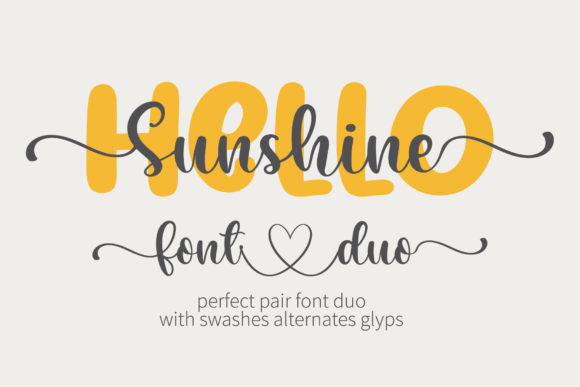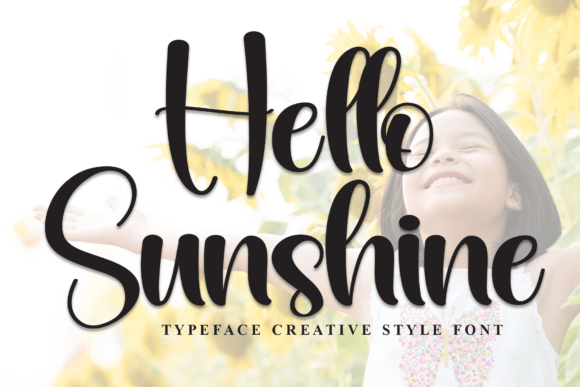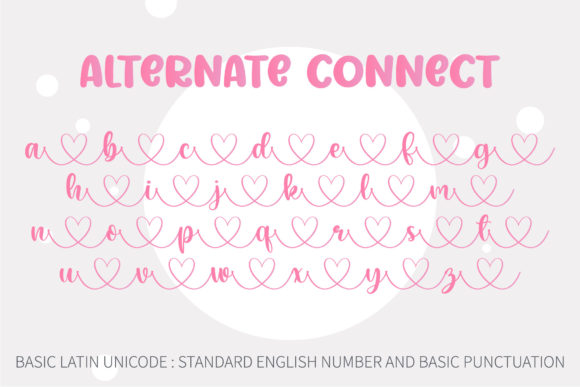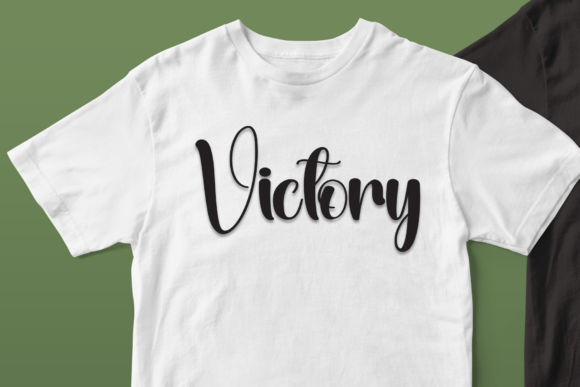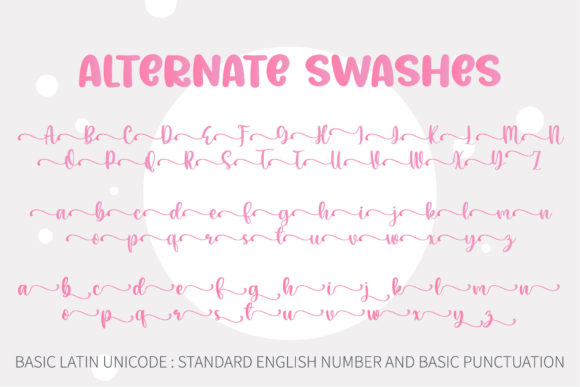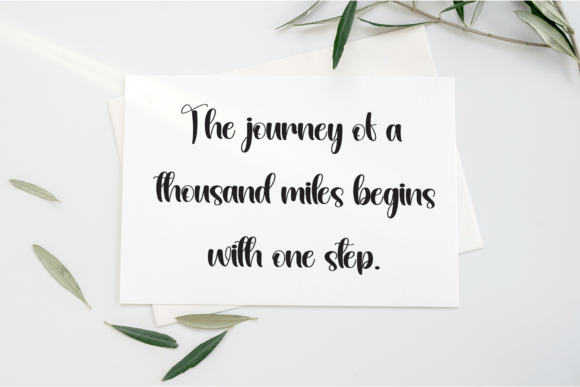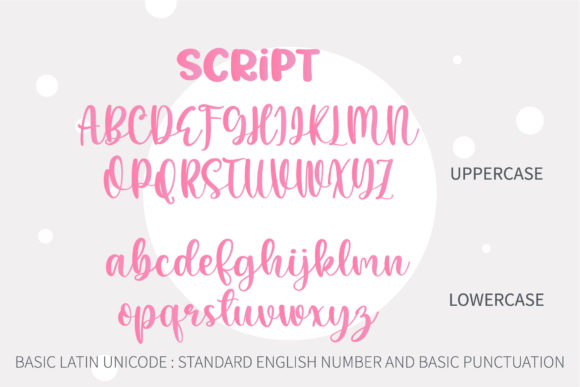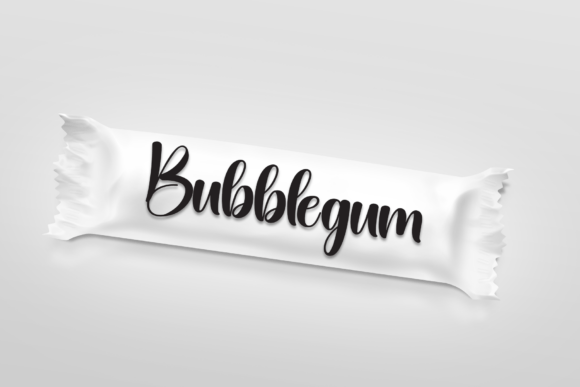
Hello Sunshine Font
About the Hello Sunshine Font
Meet Hello Sunshine Font, a stunning font that brings a touch of elegance and professionalism to any design. Elegant and expressive, this script font flows with effortless beauty. Featuring graceful curves and smooth connections, it’s ideal for adding a sophisticated, handwritten feel to wedding invitations, logos, branding projects, and social media graphics. Whether you’re designing something romantic or refined, this script font brings a timeless charm to any design.
Hello Sunshine Font is best suited for headlines, short text blocks, and branding elements where its elegant, expressive nature can shine. It works exceptionally well in projects emphasizing romance, luxury, or a handcrafted aesthetic, such as wedding stationery, boutique logos, and product packaging for high-end goods. Avoid using it for body text or long paragraphs; its script style is less legible at smaller sizes and over longer stretches of text.
The font’s personality is sophisticated and romantic, yet approachable. To balance this, consider pairing it with a clean sans-serif like Lato for a modern feel, or a classic serif like Garamond for a more traditional look. A simple geometric sans-serif could also provide a striking contrast, enhancing the script’s organic curves.
For a slightly more playful feel, a complementary script font with a less formal hand could be used alongside Hello Sunshine for secondary text elements. However, always prioritize legibility; keep the supporting font easily readable to avoid visual clutter.
Hello Sunshine Font Usage Examples
Hello Sunshine Font Example